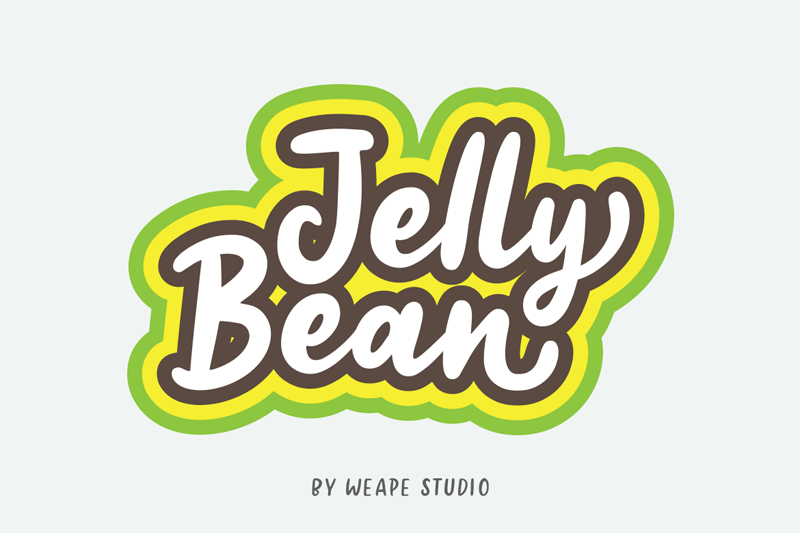
Font name: | Jelly Bean Script |
Author: | Weape Design |
Note by Weape Design | |
Introducing Jelly Bean Script Fun Font, a new hand-lettered with the style of the fun bounce script and tall uppercase. Which is you can combine the two font styles to create a cute and fresh design. Note: This demo font is for PERSONAL USE ONLY, Paypal account for donation: https://paypal.me/wahyuandi You can get the Jelly Bean Script FULL VERSION here: https://crmrkt.com/Pea8xV And follow my instagram for update: https://www.instagram.com/weape.co Thank You, Weape Design |